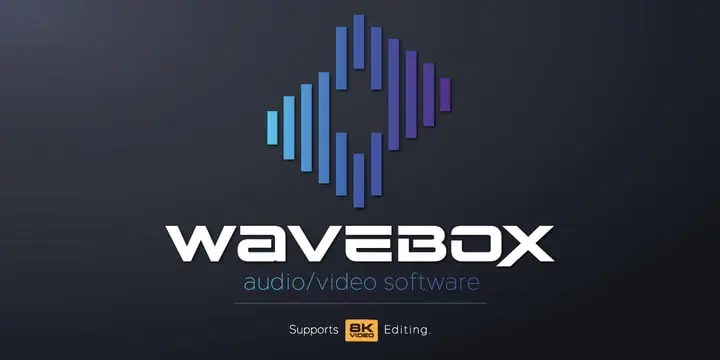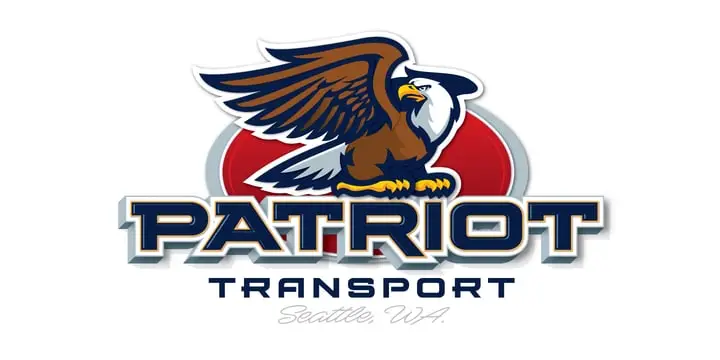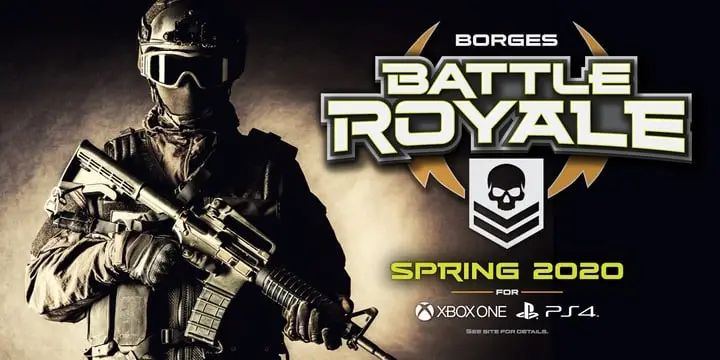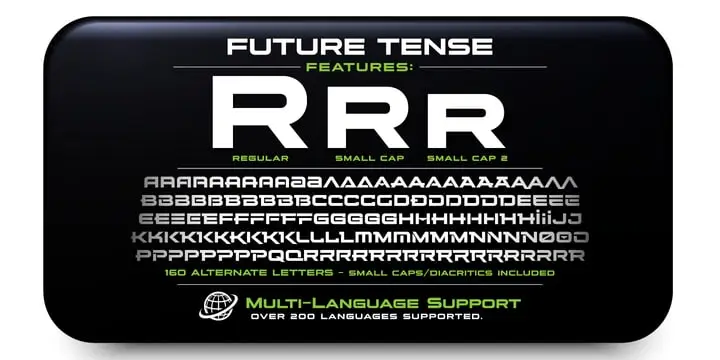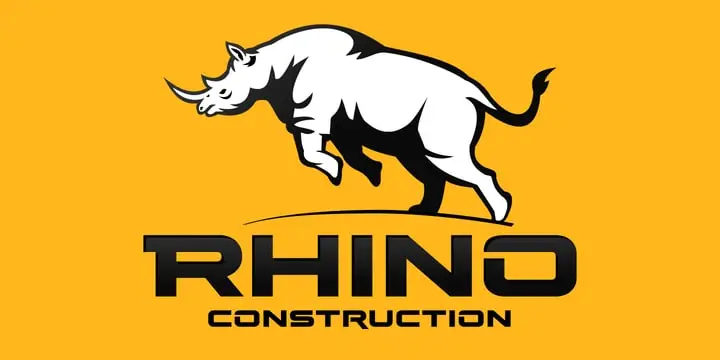
Future Tense Font (C) Borges Lettering-Extended Latin
Introducing the Future Tense Font, a meticulously crafted typeface by Borges Lettering designed specifically for extended Latin characters. This font combines modern aesthetics with versatility, making it an ideal choice for various design projects.
• Supports extended Latin characters
• Multiple weights for added flexibility
This font is perfect for branding, logo design, web projects, print materials, and user interfaces. Its modern look can elevate any creative endeavor.